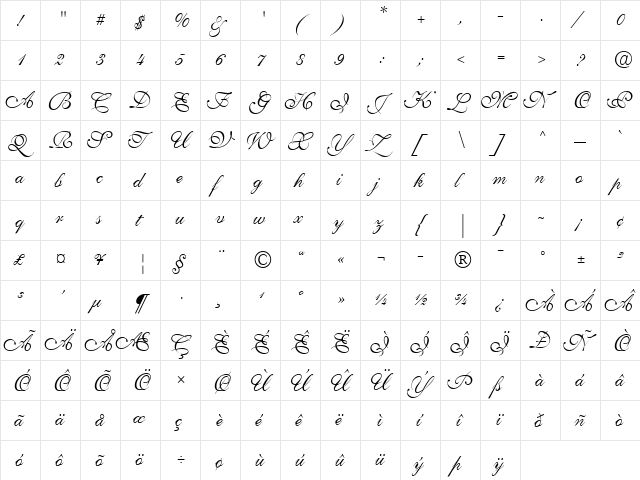
Shelley LT VolanteScript Regular
Design Context for Shelley LT VolanteScript Typeface
Shelley LT VolanteScript flows with the natural rhythm of handwritten lettering, making it ideal for designs that call for warmth and personal expression. The delicate stroke weight brings airiness and refinement to layouts.
Font Pairing: Combine Shelley LT VolanteScript with a simple geometric sans for maximum contrast — the tension between flowing curves and clean structure is a classic typographic pairing.
Pro Tip: Use Shelley LT VolanteScript for short runs of text — names, titles, or taglines. Extended body copy in script faces tires the eye quickly.